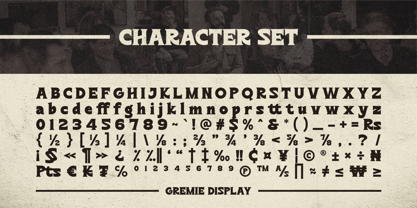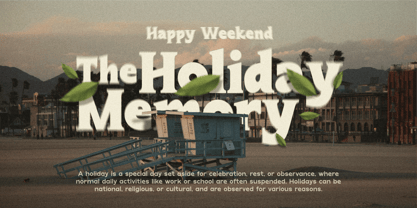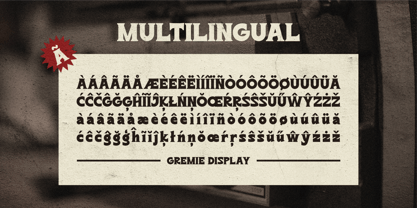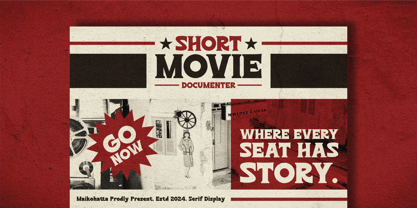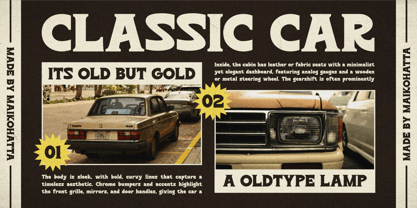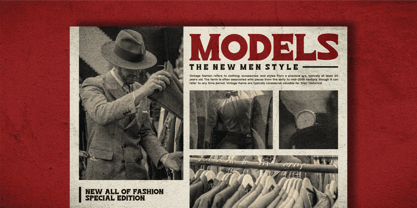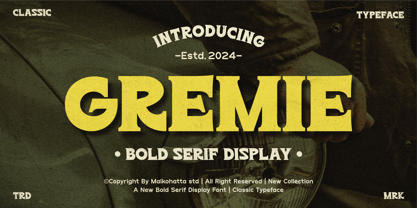
Gremie
von Maikohatta
Die Schriftfamilie Gremie wurde von Gilang Ternadho entworfen und von Maikohatta veröffentlicht. Gremie enthält 1 Stile.
Introducing our new product Gremie - Bold Serif Display
This font features a balanced proportion of stroke thickness and fineness, creating attractive and easy-to-read visuals. This modern serif style is often characterized by a bold distinction between thick and thin lines, providing a touch that is understated but still stands out.
Designer: Gilang Ternadho
Herausgeber: Maikohatta
Foundry: Maikohatta